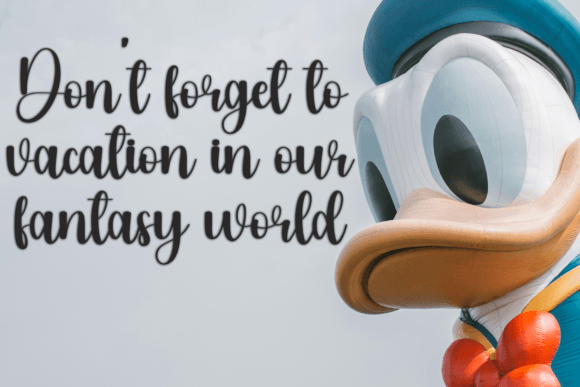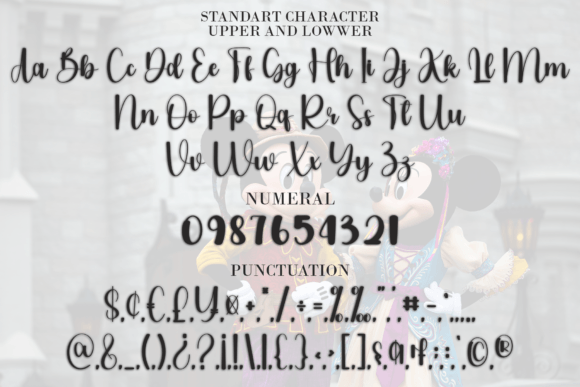
Book Disney Font
Book Disney is a sweet and friendly handwritten font. Its natural and unique style makes it incredibly fitting to a large pool of designs. The only limit is your imagination.